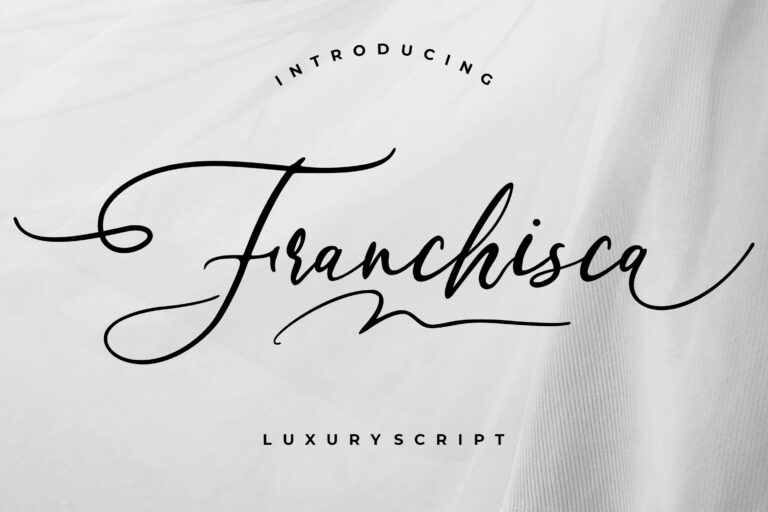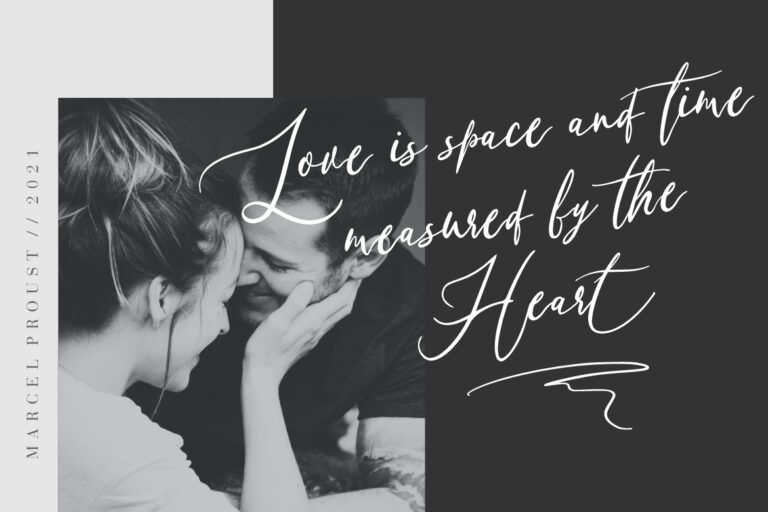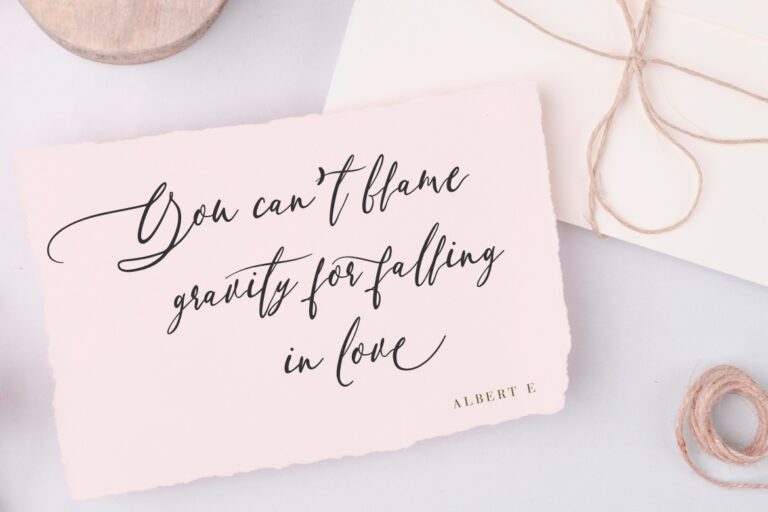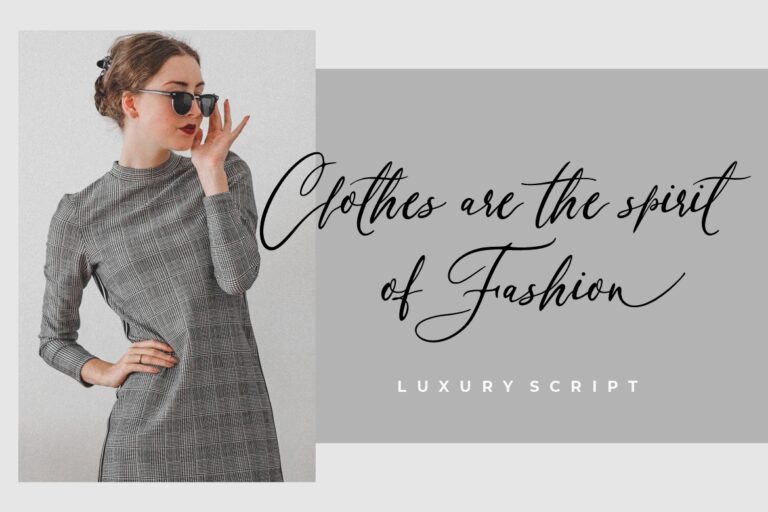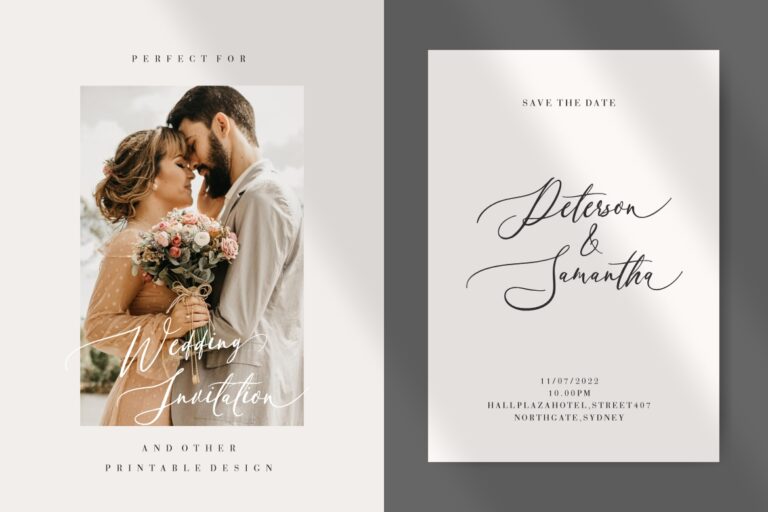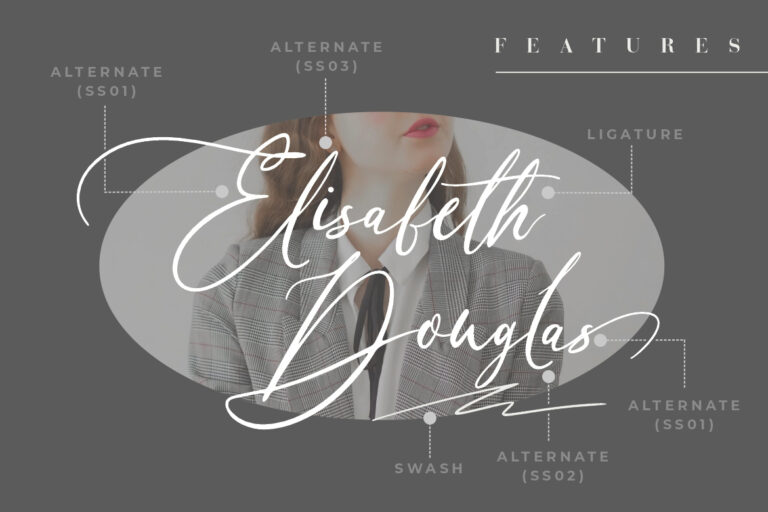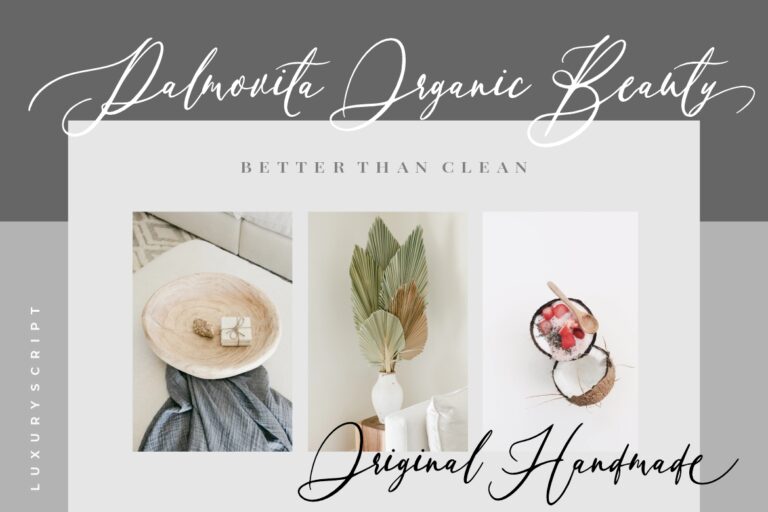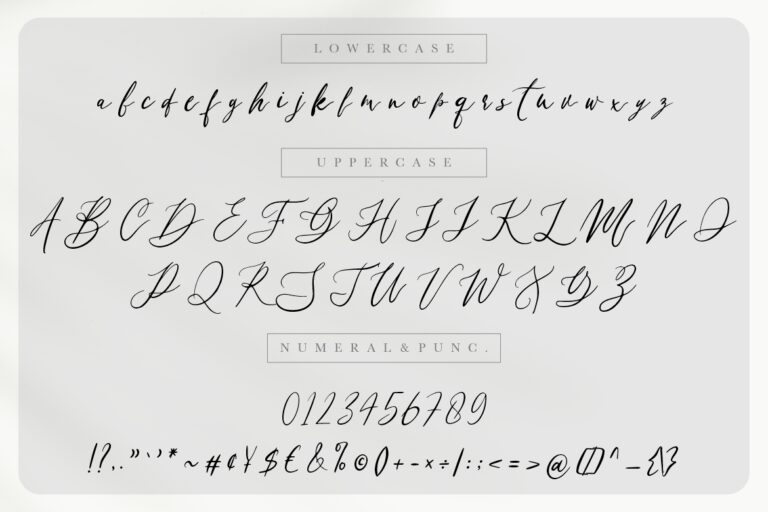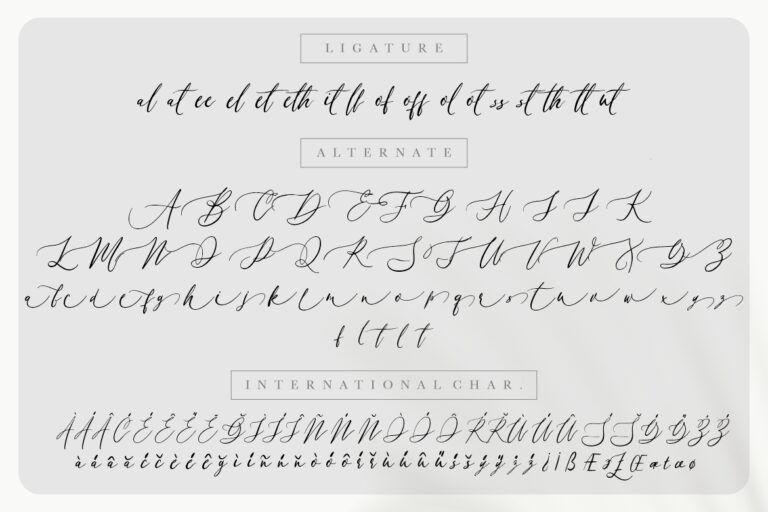
Franchisca Luxury Script
Franchisca is a luxury script font that looks very classy, modern and elegant.
Franchisca is perfect for branding projects, logo, wedding designs, social media posts, advertisements, product packaging, product designs, label, photography, watermark, invitation, stationery and any projects that need handwriting taste.